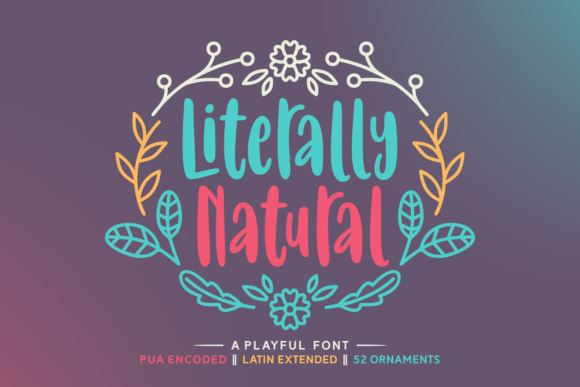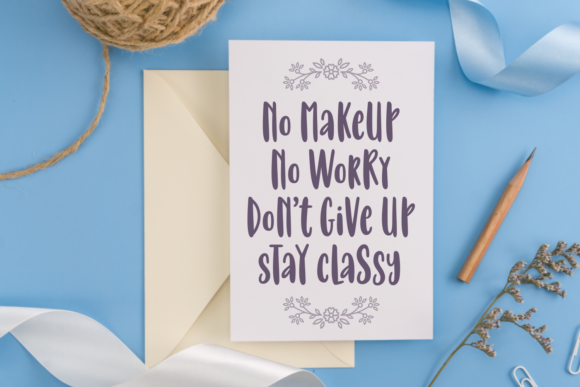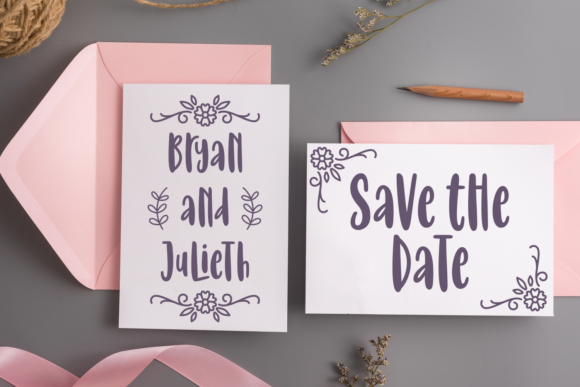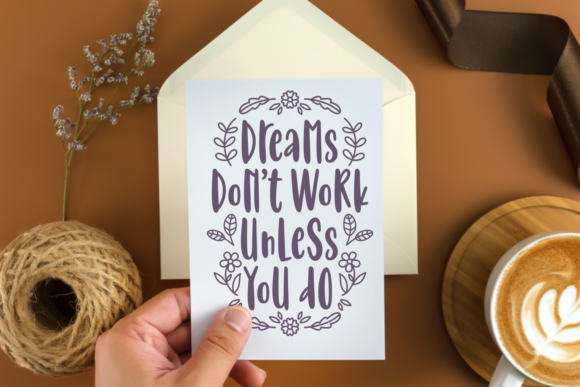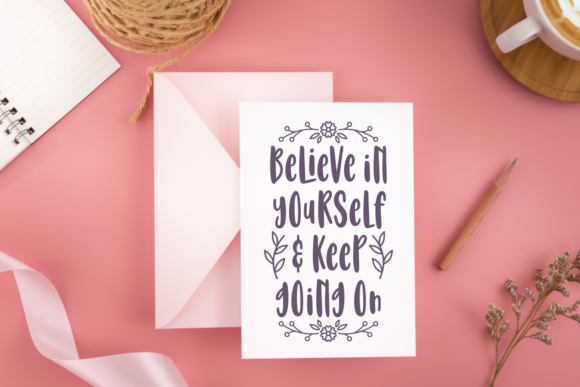
Literally Natural Font
About Literally Natural Font
Inspired by nature, Literally Natural is a beautiful font that will effortlessly add a unique touch to a big variety of design projects. It contains adorable and whimsical elements that will make any nature-lover smile.